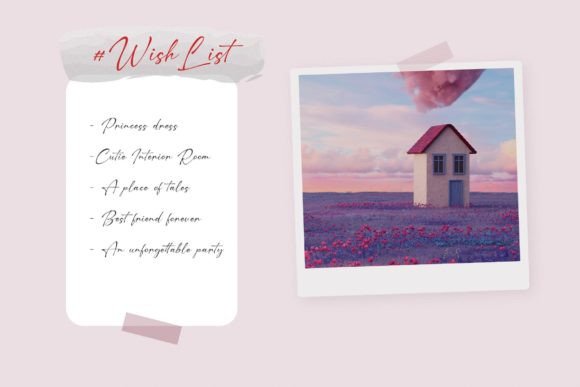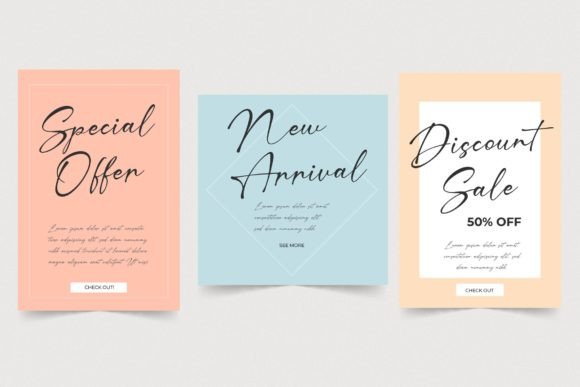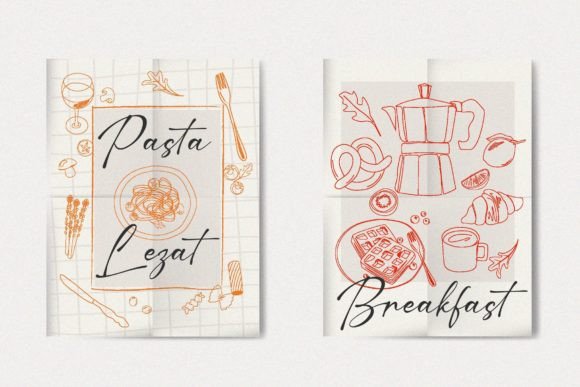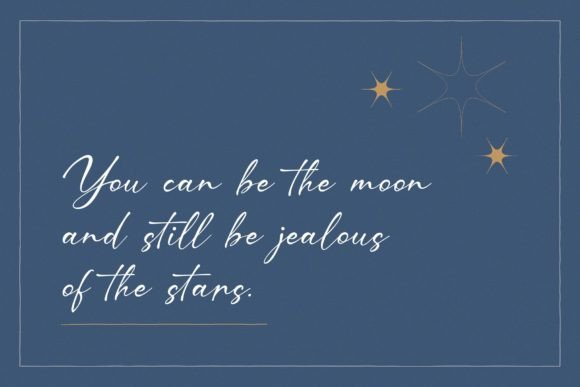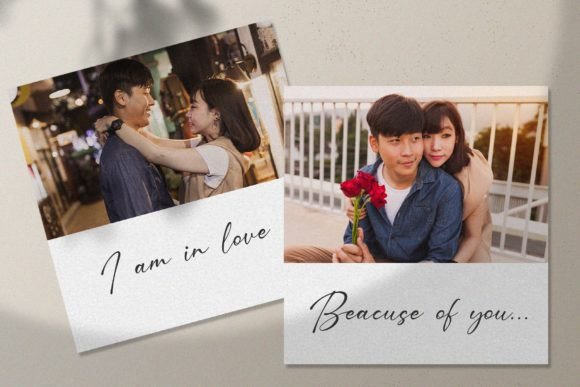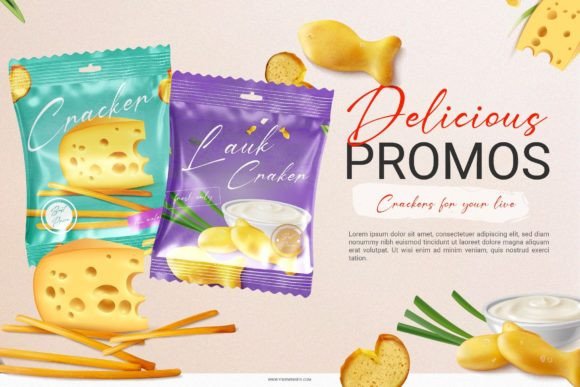
Feylany Suantika Font: Elevate Your Designs with a Touch of Elegance
Are you a designer or crafter looking for a unique and beautiful handwritten script font to elevate your projects? Look no further than Feylany Suantika, a stunning font from Denustudios that is perfect for a wide range of applications. In this article, we’ll explore the features and benefits of Feylany Suantika, and show you how to make the most of this gorgeous font in your designs.
What is Feylany Suantika?
Feylany Suantika is a beautiful handwritten script font that exudes elegance and sophistication. Created by Denustudios, this font is designed to add a touch of luxury to any project, from logos and branding to homeware designs, product packaging, and more. With its flowing curves and delicate lines, Feylany Suantika is the perfect choice for designers and crafters who want to create stunning, high-end designs that stand out from the crowd.
Features of Feylany Suantika
Feylany Suantika boasts a range of features that make it an ideal choice for designers and crafters. Some of the key features of this font include:
- Handwritten script style: Feylany Suantika has a beautiful, handwritten script style that adds a touch of elegance to any project.
- Unique character set: This font features a unique character set that includes uppercase and lowercase letters, numbers, and punctuation marks.
- High-quality design: Feylany Suantika is designed with high-quality lines and curves, making it perfect for use in a wide range of applications, from logos and branding to product packaging and more.
- Easy to read: Despite its elegant and cursive style, Feylany Suantika is easy to read, making it perfect for use in body text as well as headlines and titles.
Uses for Feylany Suantika
Feylany Suantika is a versatile font that can be used in a wide range of applications, including:
- Logos and branding: Add a touch of elegance to your logo and branding with Feylany Suantika.
- Homeware designs: Use Feylany Suantika to create beautiful homeware designs, such as wall art, cushions, and tote bags.
- Product packaging: Elevate your product packaging with Feylany Suantika, perfect for luxury brands and high-end products.
- Mugs and ceramics: Add a touch of elegance to your mug and ceramics designs with Feylany Suantika.
- Quotes and posters: Use Feylany Suantika to create stunning quotes and posters that are sure to grab attention.
- T-shirts and apparel: Create beautiful t-shirt and apparel designs with Feylany Suantika, perfect for fashion brands and designers.
- Book covers and stationery: Use Feylany Suantika to create stunning book covers and stationery, such as notebooks and journals.
- Name cards and invitation cards: Add a touch of elegance to your name cards and invitation cards with Feylany Suantika.
- Greeting cards and labels: Use Feylany Suantika to create beautiful greeting cards and labels, perfect for special occasions.
- Photography and watermark: Add a touch of elegance to your photography with Feylany Suantika, perfect for watermarks and overlays.
Tips for Using Feylany Suantika
To get the most out of Feylany Suantika, here are a few tips to keep in mind:
- Use it sparingly: Feylany Suantika is a elegant font, so use it sparingly to add a touch of luxury to your designs.
- Pair it with a sans-serif font: Pair Feylany Suantika with a sans-serif font, such as Arial or Helvetica, to create a beautiful contrast.
- Experiment with colors: Feylany Suantika looks stunning in a range of colors, so experiment with different colors to find the perfect combination for your design.
Feylany Suantika is a stunning handwritten script font that is perfect for designers and crafters who want to add a touch of elegance to their projects. With its unique character set, high-quality design, and ease of use, Feylany Suantika is a versatile font that can be used in a wide range of applications. Whether you’re creating logos and branding, homeware designs, or product packaging, Feylany Suantika is sure to elevate your designs and help you stand out from the crowd.